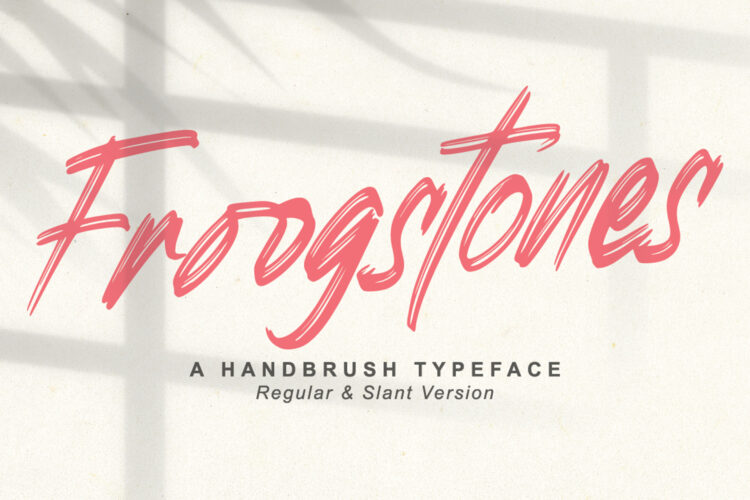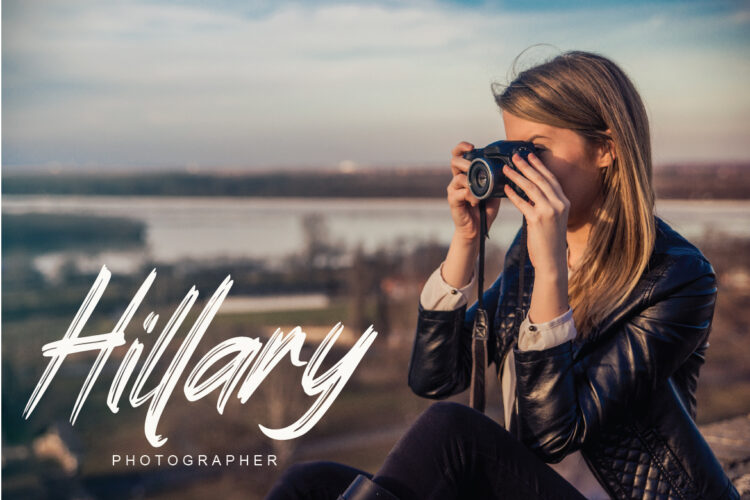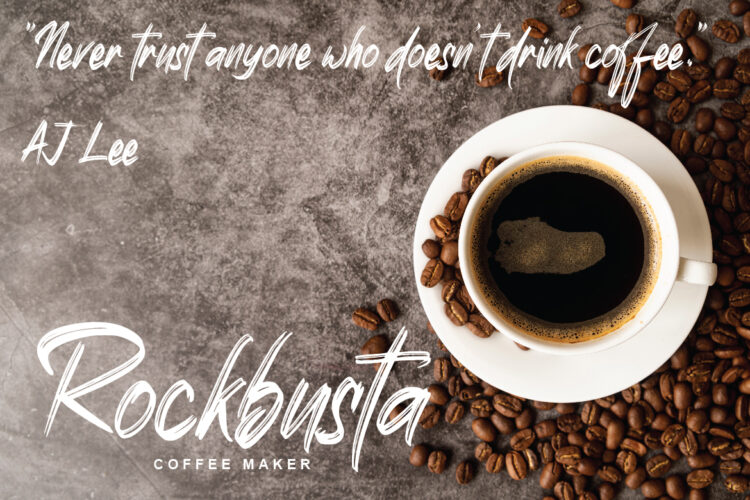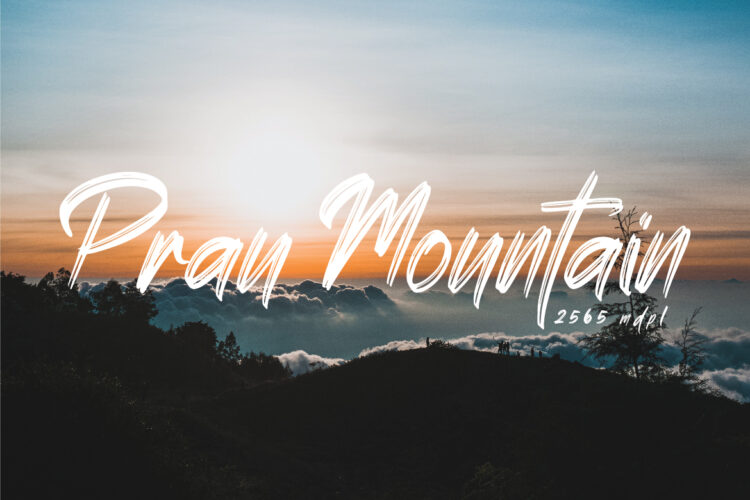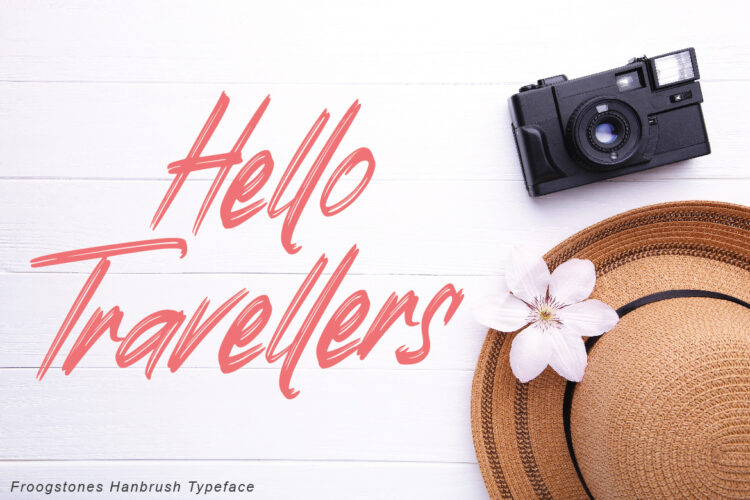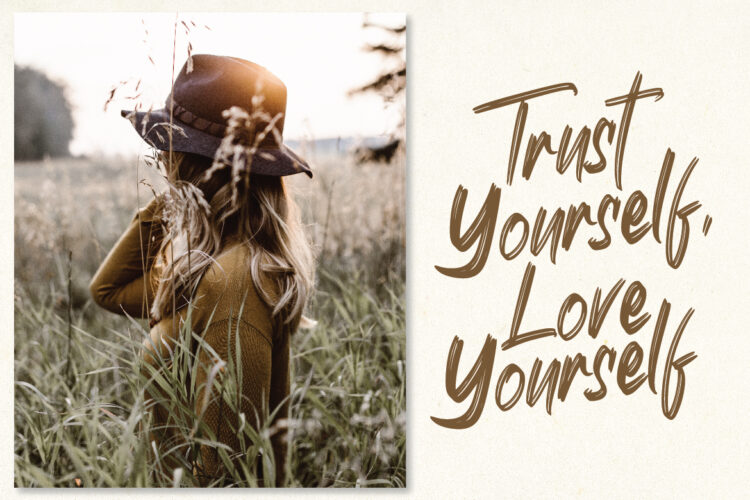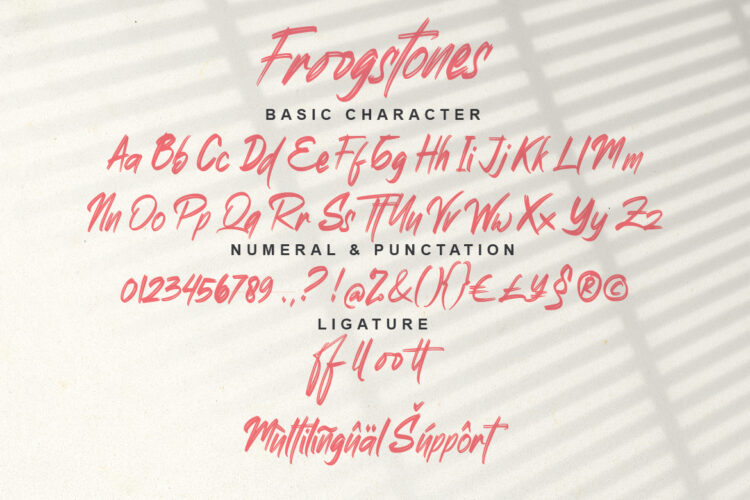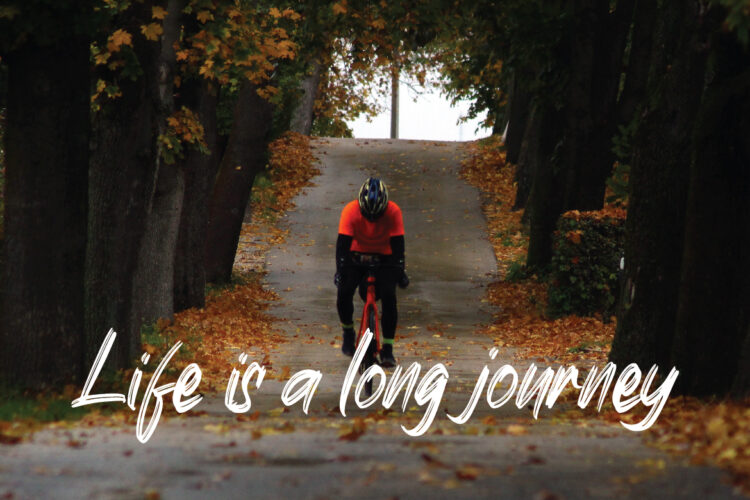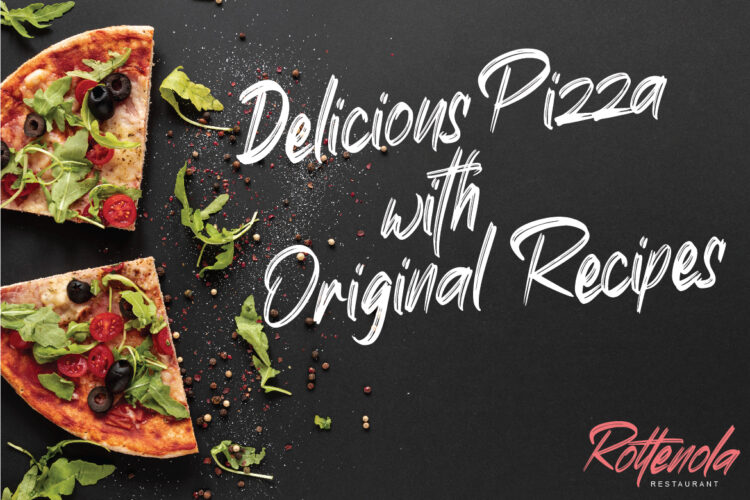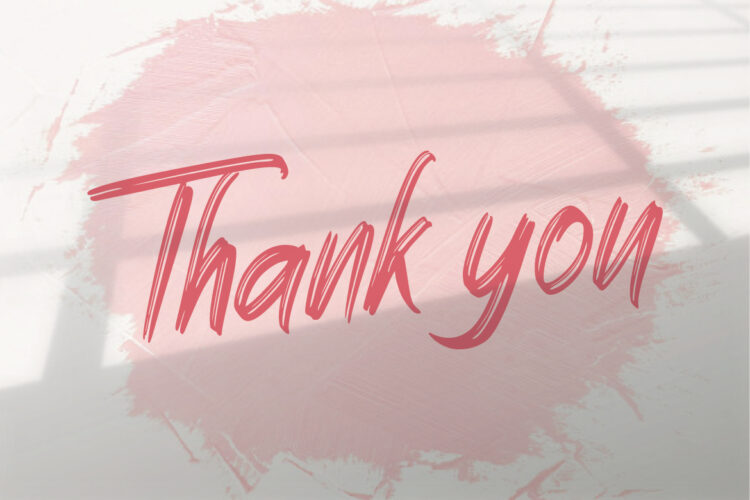
Froogstones Handbrush Typeface is a brush script that is written casually and quickly.has 2 styles of regular and slant variations with a more natural look to your text.Froogstones perfect for homeware designs,branding projects, Logo design,Quotesproduct packaging – or simply as a stylish text overlay to any background image. Thank You